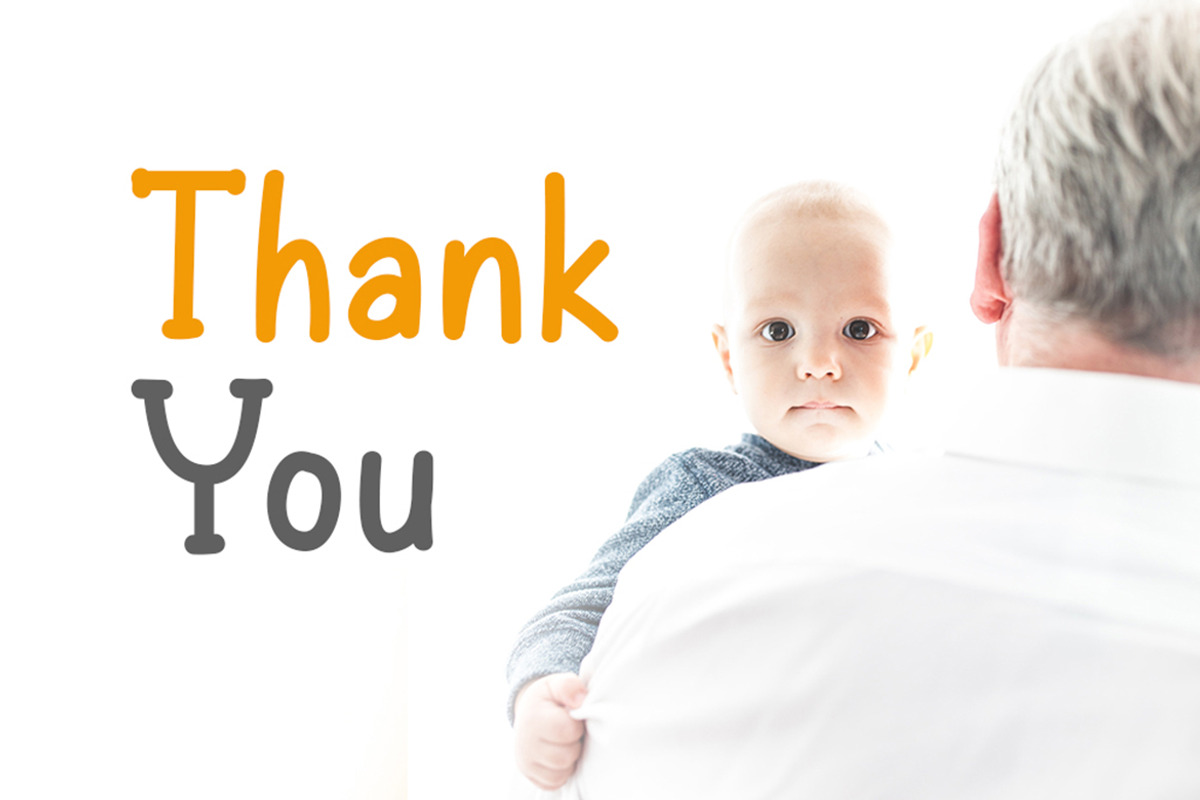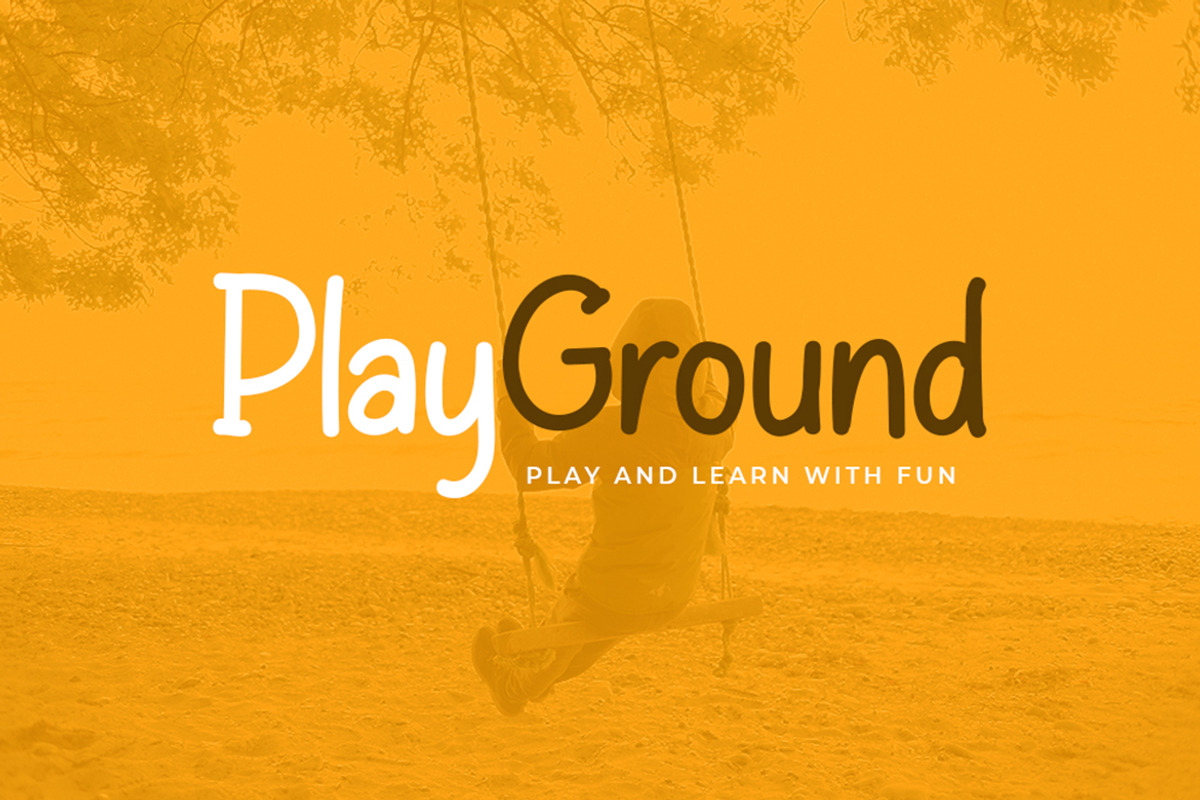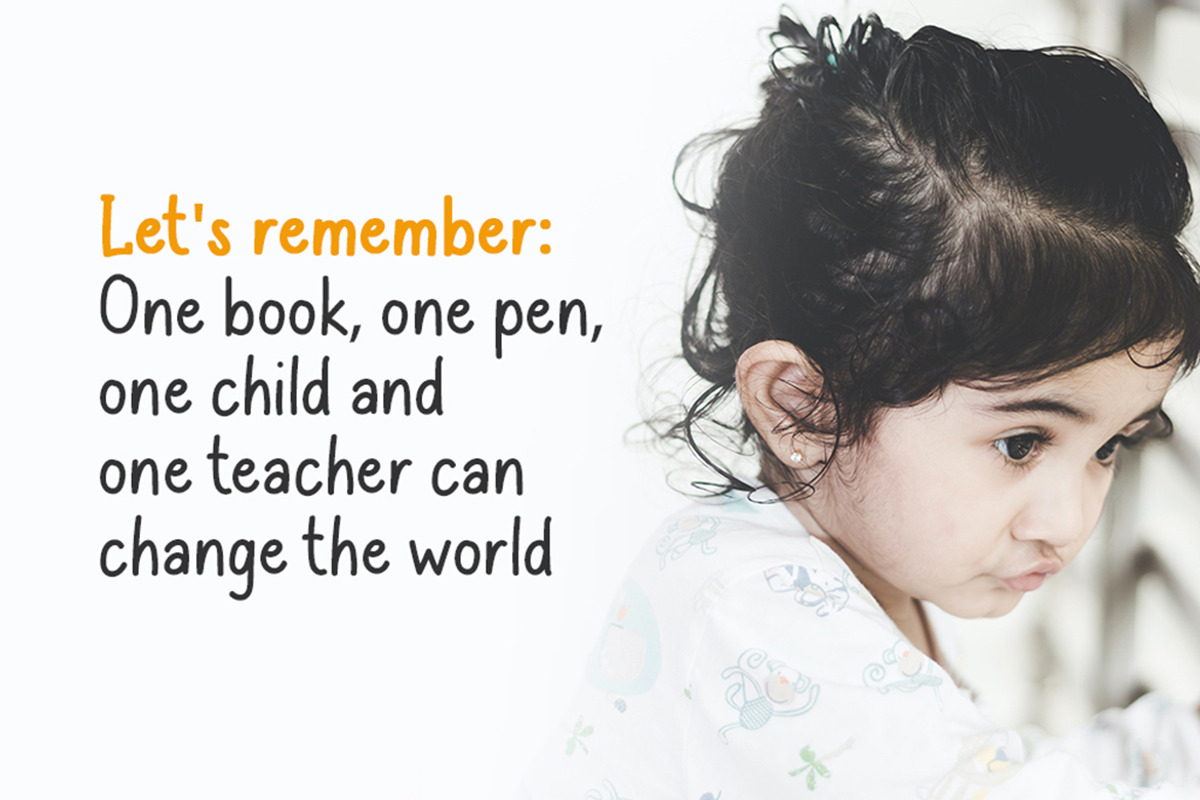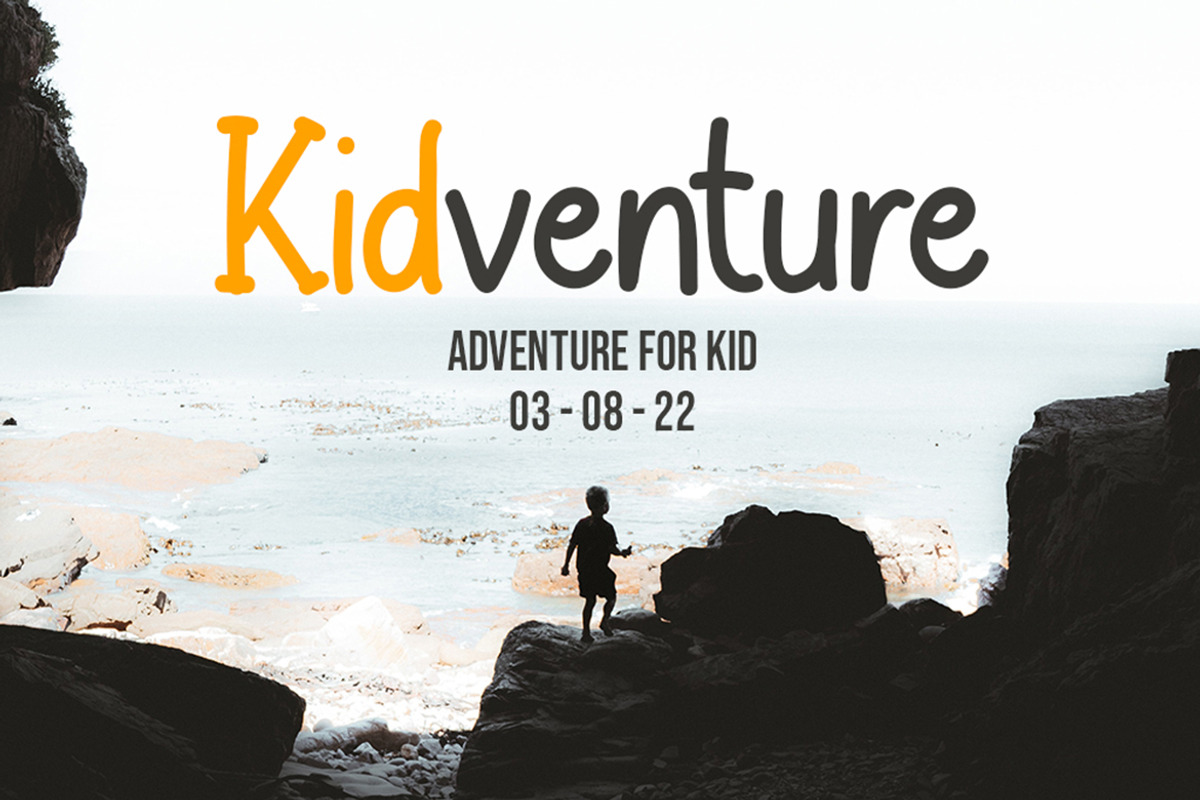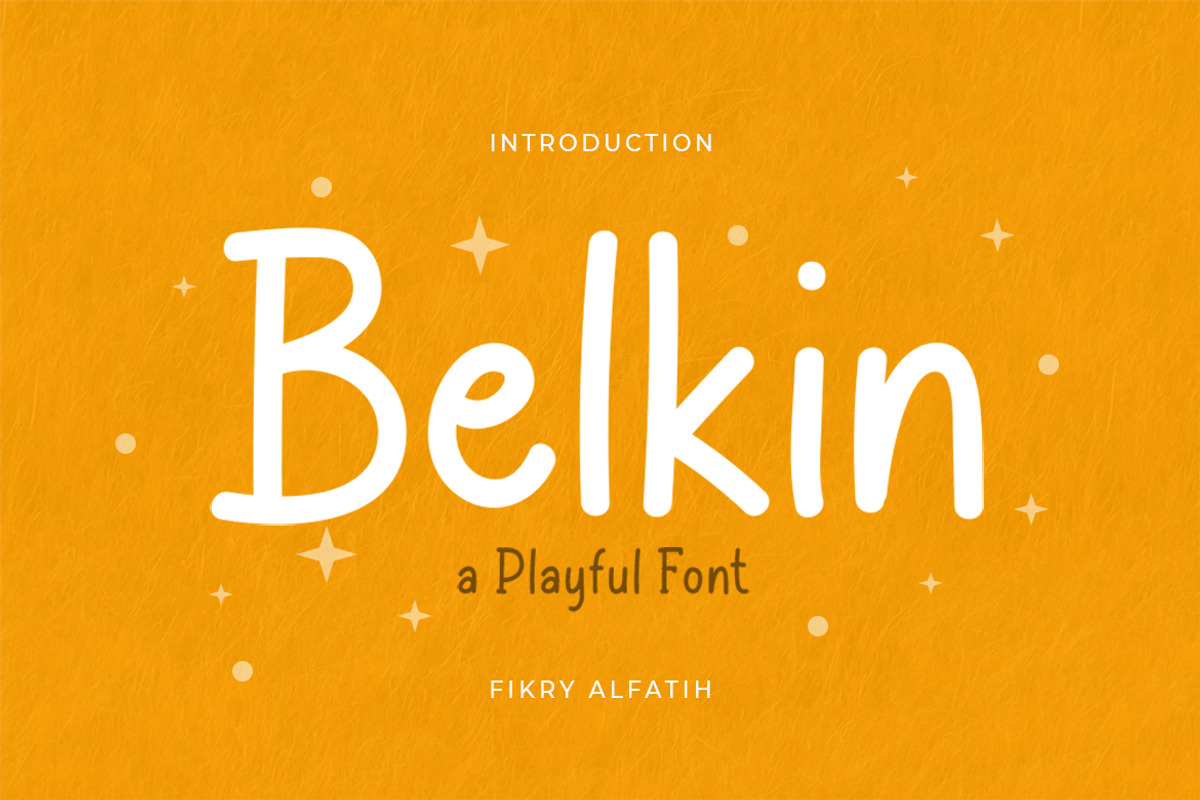
Belkin - Playful Font
Belkin is a handwritten font that combines fun and playful glyphs. This font provides a luxurious hand-drawn effect that’s guaranteed to add great appeal to your quotes, logo designs, brand image, product packaging, merchandise & social media posts.